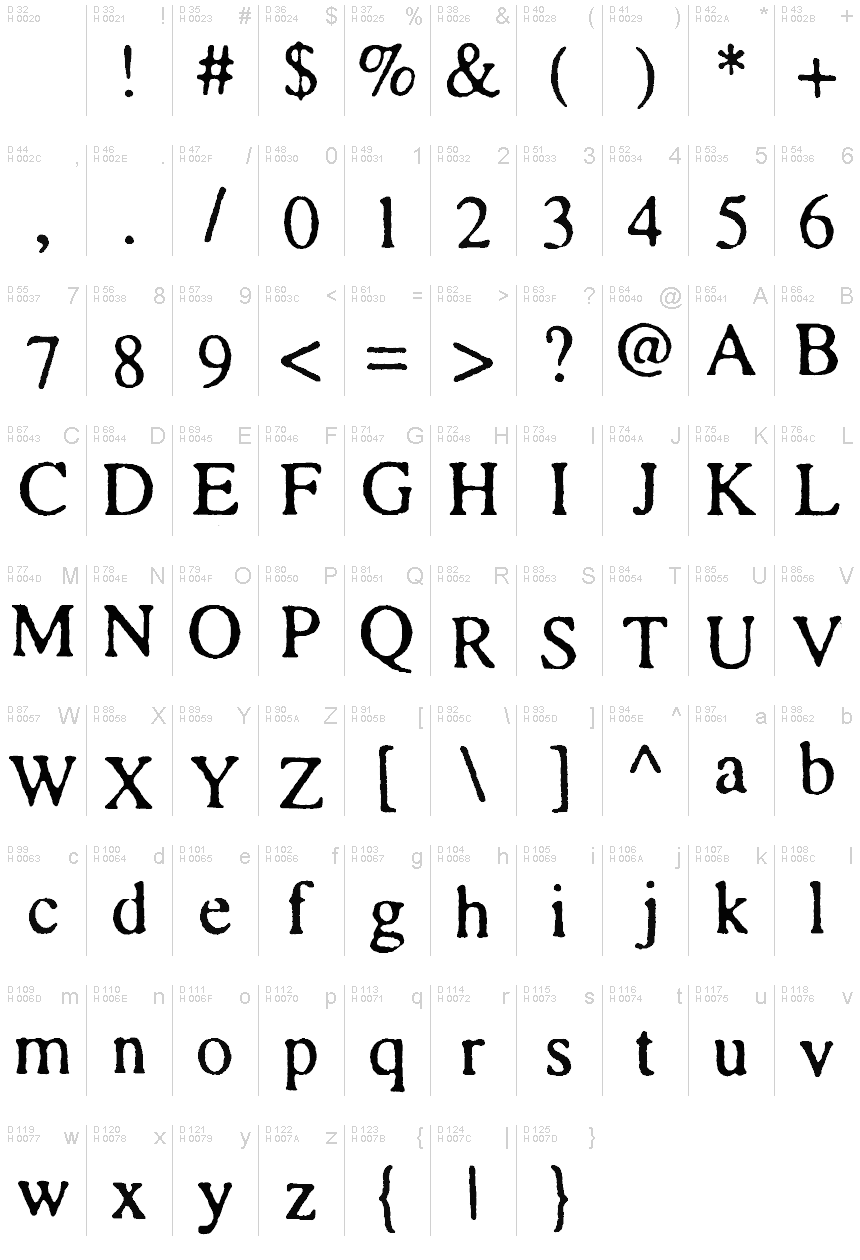
Times and Times again
Times and Times again is a display font that exudes an air of distinction with its eroded style, offering a blend of classic charm and contemporary flair. Its weathered texture adds depth and character, suggesting a storied past while maintaining readability. The font's aesthetic strikes a balance between the rawness of time-worn surfaces and the elegance of traditional typefaces, making it an intriguing choice for designers looking to infuse their projects with a sense of history and modernity.
This typeface is particularly suited for use in branding, editorial designs, and creative visuals where a touch of nostalgia or edginess is desired. Whether gracing the cover of a boutique magazine or anchoring the identity of an artisanal café, Times and Times again stands out for its ability to convey both sophistication and authenticity. The font's unique character ensures that any application will capture attention while retaining an accessible tone that resonates with diverse audiences.